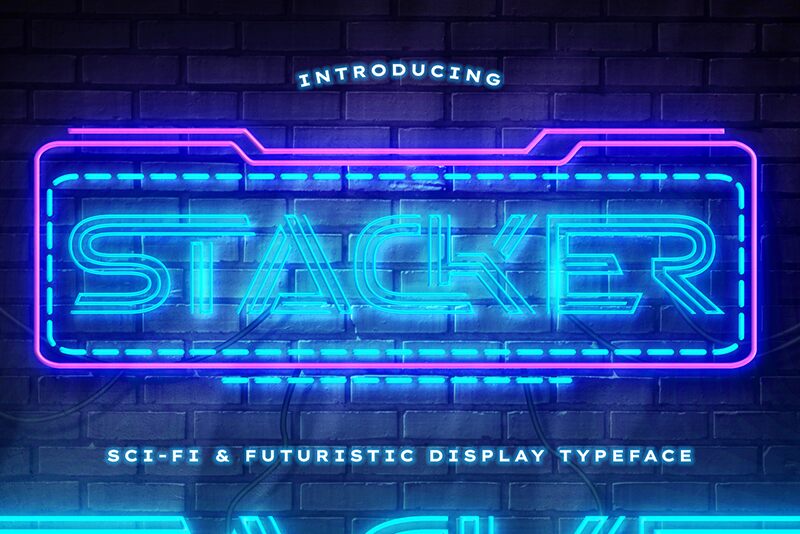
Stacker
Stacker by Almarkhatype is a strikingly bold display font that captivates with its futuristic flair. The expanded form creates an imposing presence, making it perfect for eye-catching headlines and branding. Each character flows together in a manner that exudes confidence, while the sharp lines and geometric shapes lend an air of modernity.
Visually, Stacker’s aesthetic appeal lies in its ability to command attention without overwhelming the viewer. It’s ideal for projects ranging from tech designs to urban-themed graphics, effectively conveying innovation and forward-thinking. Whether used in advertisements or digital interfaces, this font stands out as a versatile choice for creators looking to leave a lasting impression. Experience the unique charm of Stacker and elevate your design projects with its dynamic style.